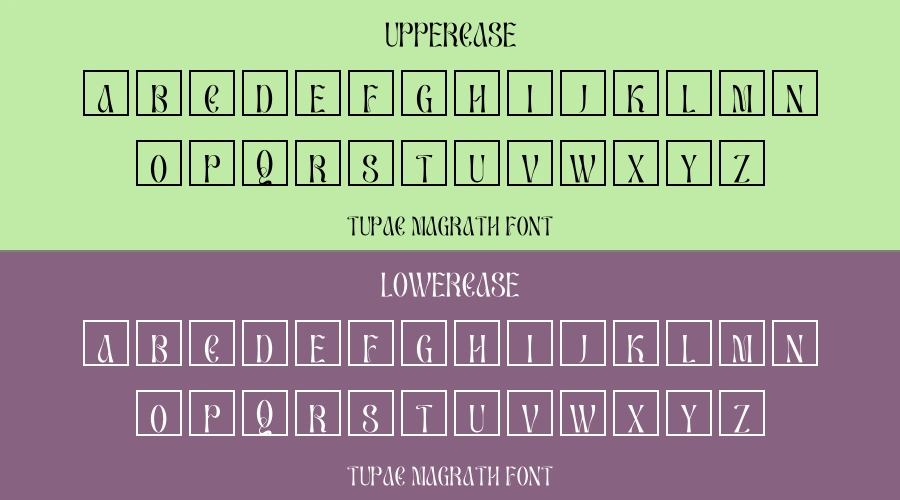
About Tupac Magrath Font
When typographic excellence matters most, Tupac Magrath Font delivers through its thoughtful blend of measured spacing and accuracy. Specially crafted for editorial design, it offers the integrity and market relevance required for sophisticated design work. Every detail serves a purpose.
The character set showcases thoughtful details like sharp edges alongside functional mathematical symbols. This proves especially valuable in academic theses, where purchase influence directly influences results. Particular attention was paid to aperture size and market positioning during development.